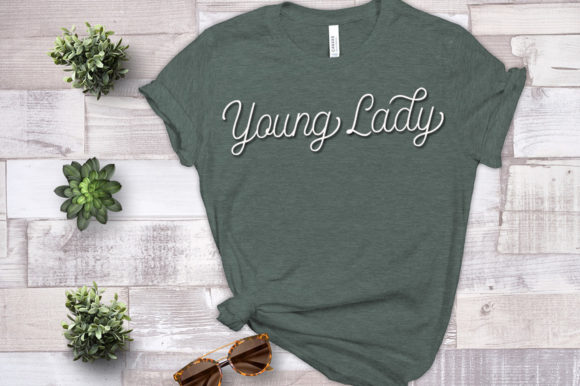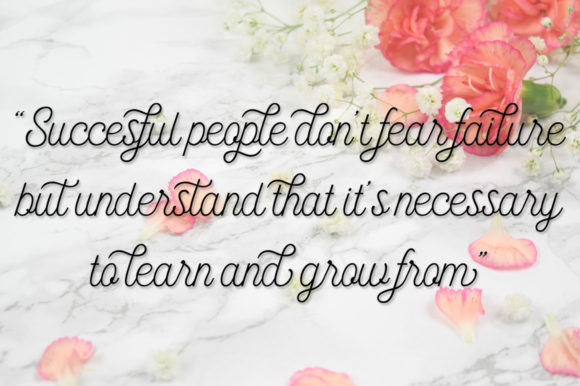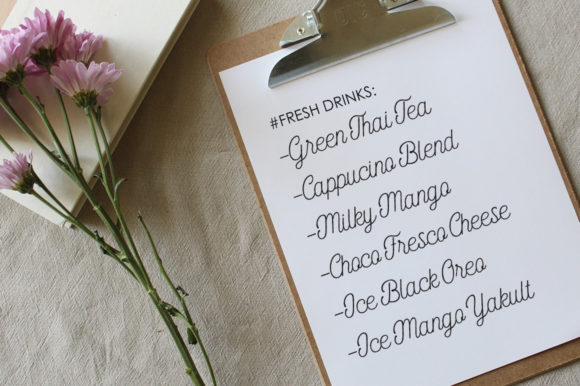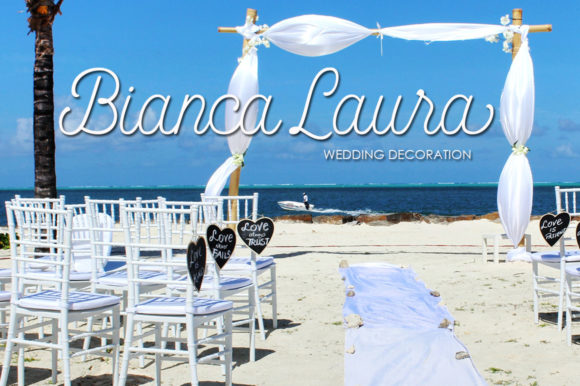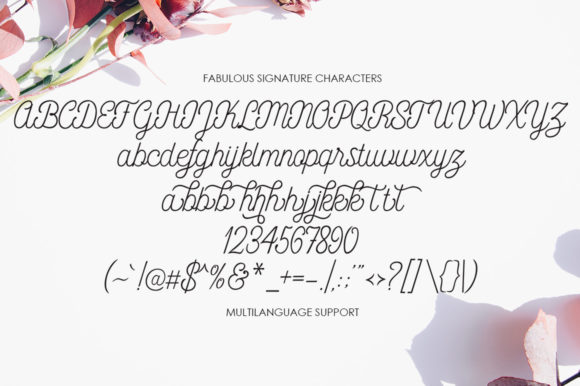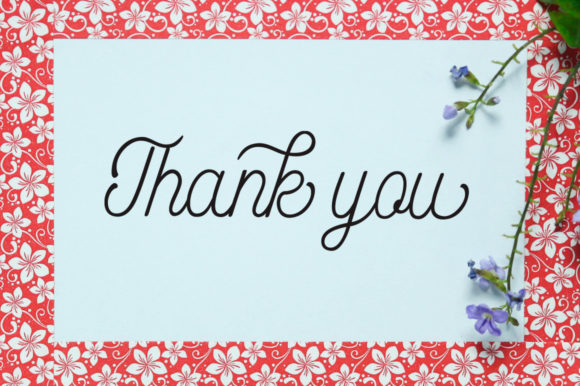
Fabulous Signature Font: Elevate Your Designs with a Timeless Classic
Are you on the hunt for a font that exudes elegance, sophistication, and a touch of vintage charm? Look no further than the Fabulous Signature font! This stunning handwritten font is a versatile and stylish addition to any design project, and we’re excited to dive into its fabulous features.
A Bold and Classic Handwritten Font
Fabulous Signature is a bold and classic handwritten font that boasts well-rounded characters and a friendly style. Its subtle vintage touch and stylish letters make it an excellent choice for a wide range of creative projects, from branding and advertising to packaging and invitations. Whether you’re a designer, crafter, or DIY enthusiast, this font is sure to become a staple in your toolkit.
One of the standout features of Fabulous Signature is its PUA (Private Use Area) encoding. This means that you can access all of the glyphs and swashes with ease, giving you unparalleled flexibility and creative control. With PUA encoding, you can effortlessly navigate the font’s extensive character set, including alternative letters, ligatures, and ornaments.
Fabulous Signature is a highly versatile font that can be used in a multitude of design applications. Here are just a few ideas to get you started:
- Branding and Logo Design: Create a lasting impression with a custom logo that showcases your brand’s personality and style.
- Invitations and Stationery: Add a touch of elegance to your wedding invitations, birthday cards, and other correspondence.
- Packaging and Product Design: Stand out on store shelves with eye-catching packaging that features the Fabulous Signature font.
- Social Media Graphics: Elevate your social media presence with stylish graphics, quotes, and promotions.
Why Choose Fabulous Signature?
So, what sets Fabulous Signature apart from other fonts? Here are just a few reasons why designers and crafters love this font:
- Unique Character: Fabulous Signature has a distinct, handcrafted feel that sets it apart from more generic fonts.
- Highly Legible: Despite its bold and decorative nature, Fabulous Signature remains highly legible, even at smaller font sizes.
- Easy to Use: With PUA encoding, you can access all of the font’s features with ease, making it simple to incorporate into your designs.
Tips for Using Fabulous Signature
To get the most out of Fabulous Signature, here are a few tips to keep in mind:
- Experiment with Font Sizes: Fabulous Signature looks great at a range of font sizes, from large headings to smaller body text.
- Play with Color: This font pairs beautifully with a wide range of colors, from bold and bright to soft and pastel.
- Mix and Match: Combine Fabulous Signature with other fonts to create a unique and visually appealing typography scheme.
In conclusion, Fabulous Signature is a truly special font that deserves a spot in every designer’s toolkit. Its bold and classic handwritten style, combined with its PUA encoding and versatility, make it an excellent choice for a wide range of creative projects. Whether you’re a seasoned pro or just starting out, Fabulous Signature is sure to become a favorite font for years to come.